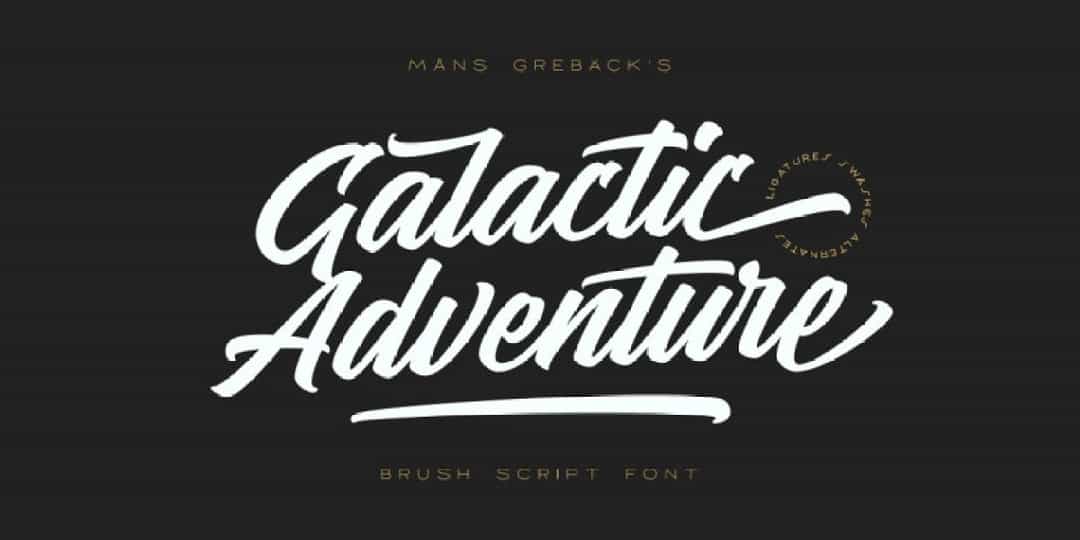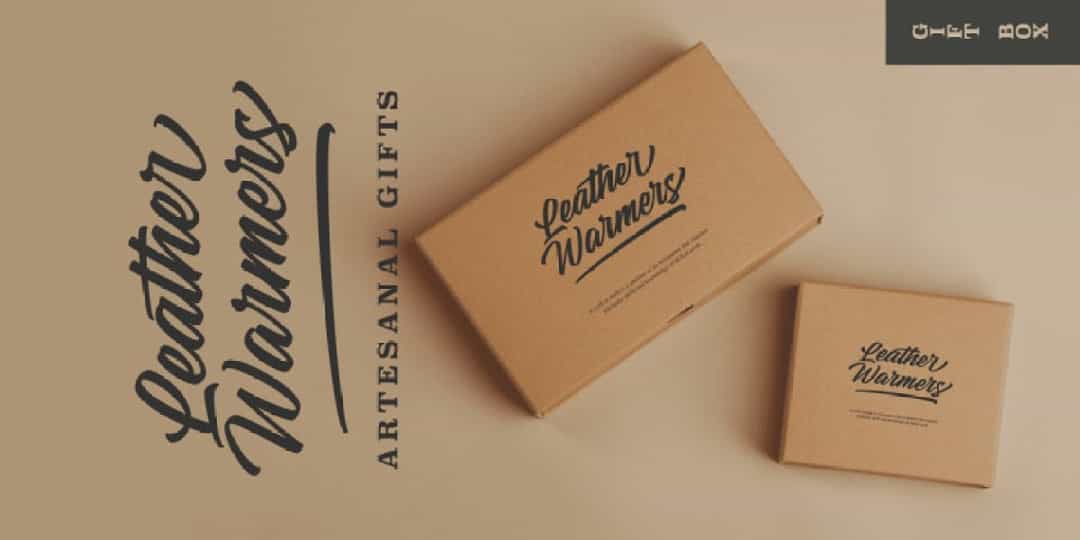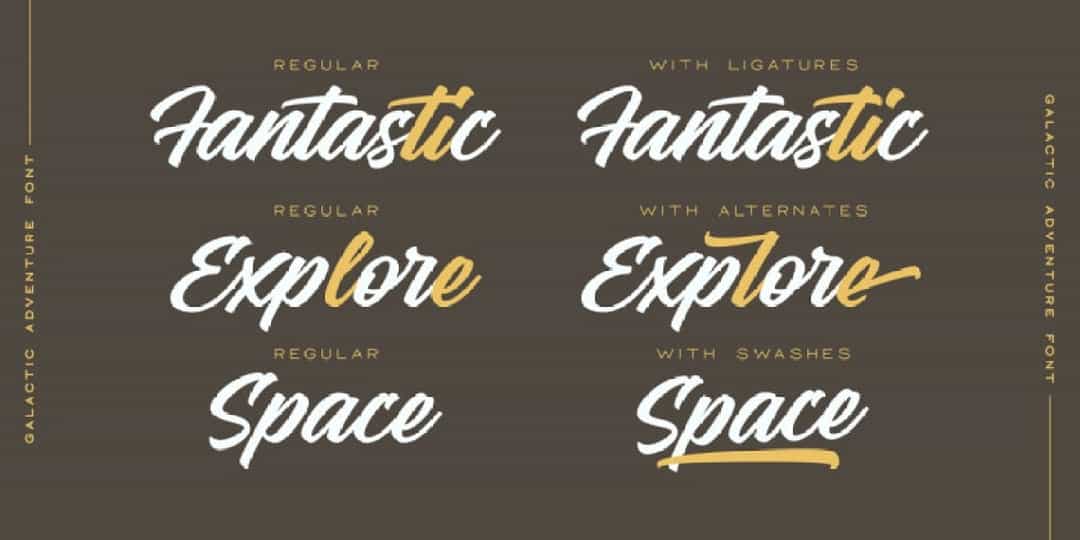
Galactic Adventure is an eye-catching calligraphic brush script font with an old-fashioned aesthetic, inspired by the expressive motion and boldness of old advertisements. The font’s powerful vigorous lines perfectly combine with its playful spirit for an exciting retro aesthetic, making it a fantastic option for branding, products and creative projects that require some retro charm.